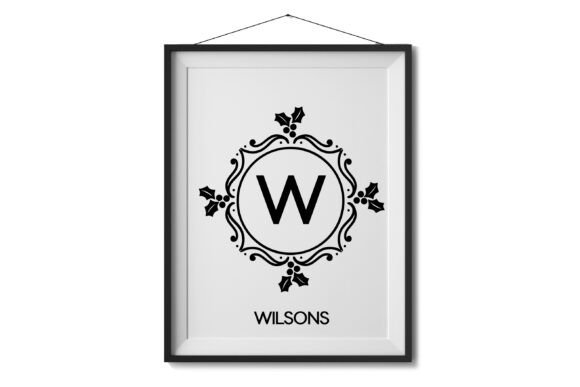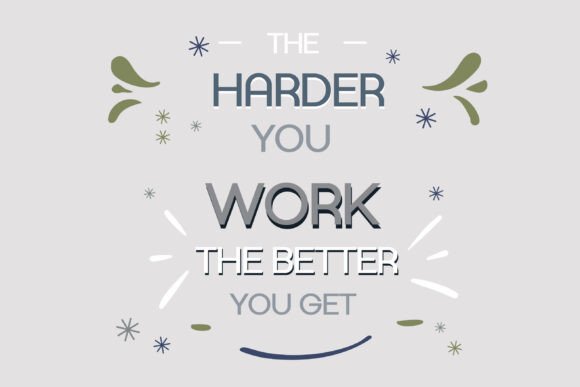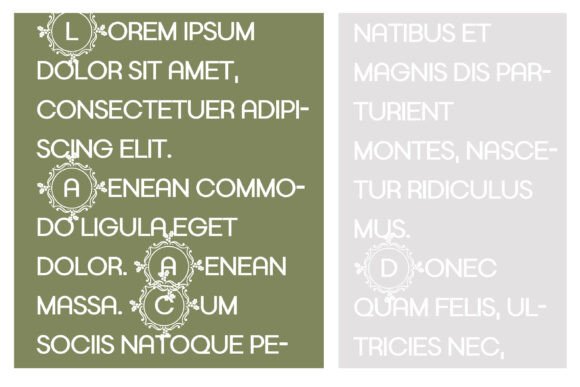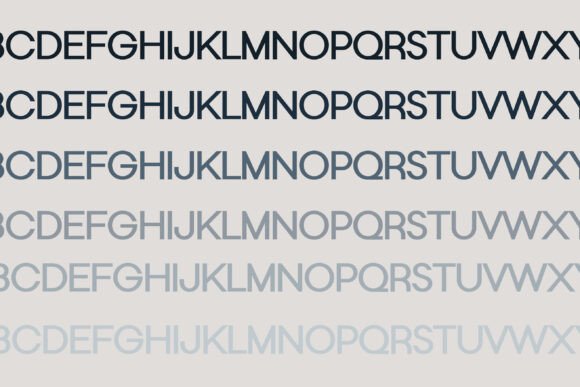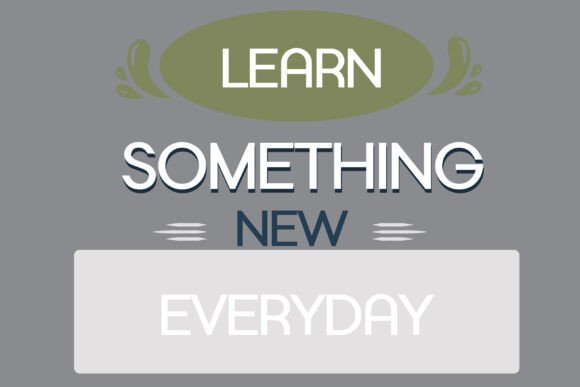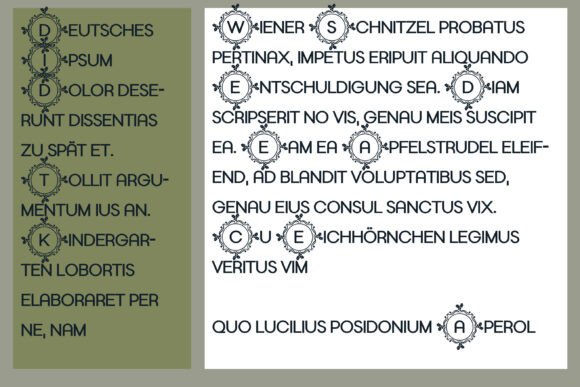
Introduction to Hollyfest Monogram Font
Have you ever been brainstorming ideas for a creative project, flipping through design resources, and suddenly, a spark of inspiration hits you? That’s exactly what happened to me when I stumbled upon the Hollyfest Monogram Font. The moment I saw its elegant, hand-crafted design, I knew I had to share it with fellow designers and crafty enthusiasts.
The Hollyfest Monogram Font features beautiful, holly-framed uppercase lettering and a lowercase without frames, giving it a unique and festive touch. With a transparent background, this high-quality font is perfect for adding a personal touch to your designs, from invitations and greeting cards to party decorations and more.
Key Features of Hollyfest Monogram Font
- Unique, hand-drawn design that adds a touch of elegance to any creative project
- Transparent background option for easy layering and customization in your design
- Perfect for holiday-themed projects, weddings, and other special events where a touch of sophistication is needed
Honest Review: Hollyfest Monogram Font
I recently stumbled upon the Hollyfest Monogram Font, and I’m excited to share my thoughts on this design resource. At first glance, the font’s elegant and sophisticated design caught my eye. The intricate details and classic feel make it perfect for a variety of creative projects.
What works well: ✨ The Hollyfest Monogram Font is available for free download, which is a huge plus for designers on a budget. The font’s transparent background also makes it easy to customize and pair with other design elements. I’ve used it for several projects, and the results have been fantastic. The font’s high quality is evident in its crisp lines and smooth curves.
- High-quality design with crisp lines and smooth curves
However, I do have a few minor complaints: ⚠️ The font’s size can be a bit inconsistent across different platforms, which may require some tweaking. Additionally, the font’s versatility is somewhat limited by its formal, elegant design.
Overall, I’m impressed with the Hollyfest Monogram Font. Its unique design and high-quality construction make it a valuable addition to any designer’s toolkit. While it may not be suitable for every project, I would definitely recommend it for more formal, creative endeavors.
The Hollyfest Monogram Font is a high-quality design resource perfect for creative projects. It offers a unique and stylish monogram style that can be used in various design applications. With a transparent background, this font can be easily layered over other design elements.
The Hollyfest Monogram Font is ideal for creative projects such as:
- Business cards and branding materials
- Event decorations and signage
For the best results, use the Hollyfest Monogram Font in conjunction with other design elements that complement its style. Experiment with different font sizes, colors, and layering techniques to create a unique and eye-catching design.
Is the Hollyfest Monogram Font a high-quality design resource?
Yes, the Hollyfest Monogram Font is a high-quality design resource that is carefully crafted to provide a unique and creative touch to your design projects. The font is designed to be scalable and versatile, making it suitable for use in a wide range of applications, from business cards to website headers.